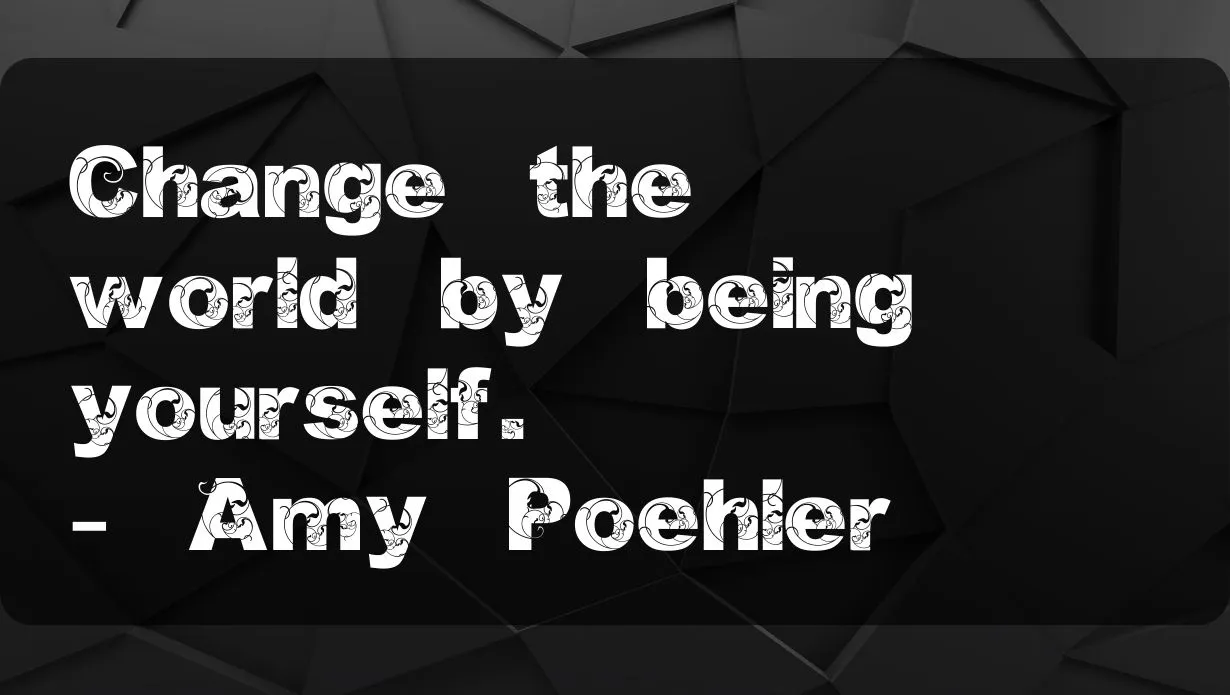
Salman Boosty is the creator of this magnificent typeface. Orial font belongs to the Fancy category. It contains a unique style which makes it different than others. This typeface contains 85 glyphs and about 255 characters. This particular typeface has a great pairing with the Broadway Font.
This font is adaptable, for any kind of project. Orial font is a font that is easy to read and has a bold appearance which makes it a favorite of users. The features of this project are exemplary for any purpose.